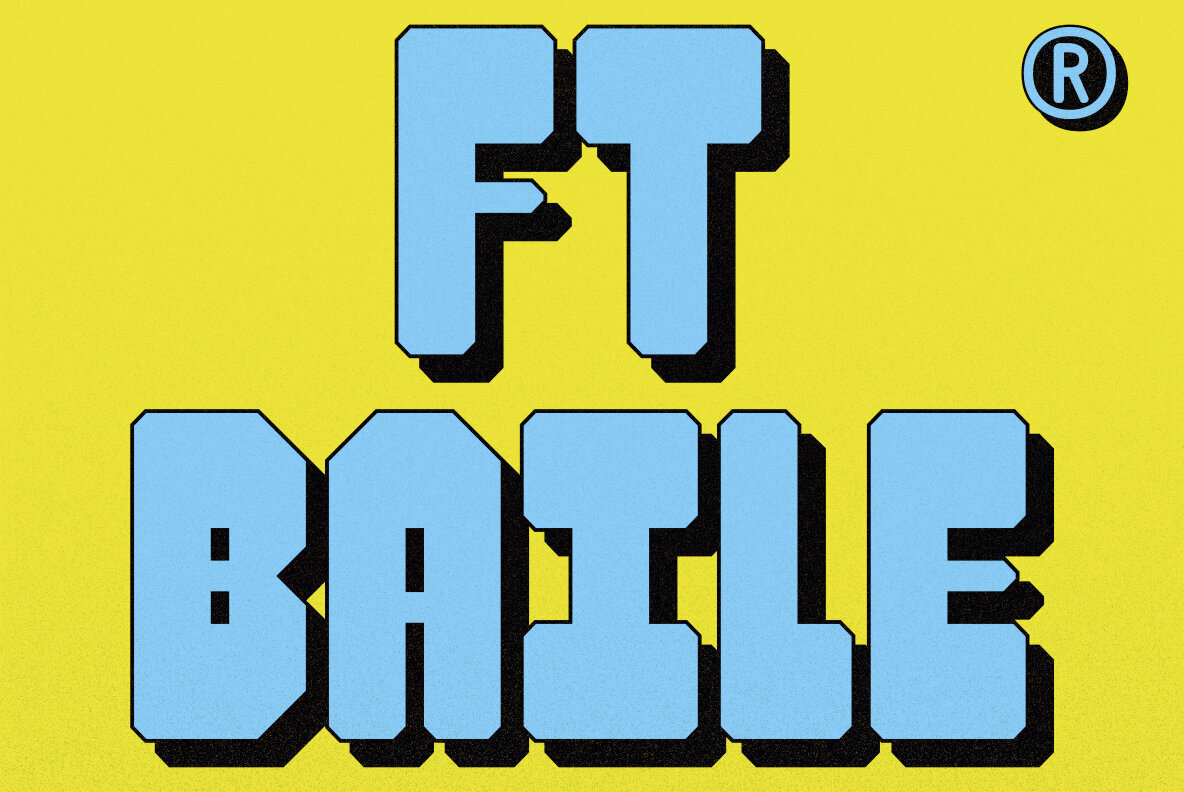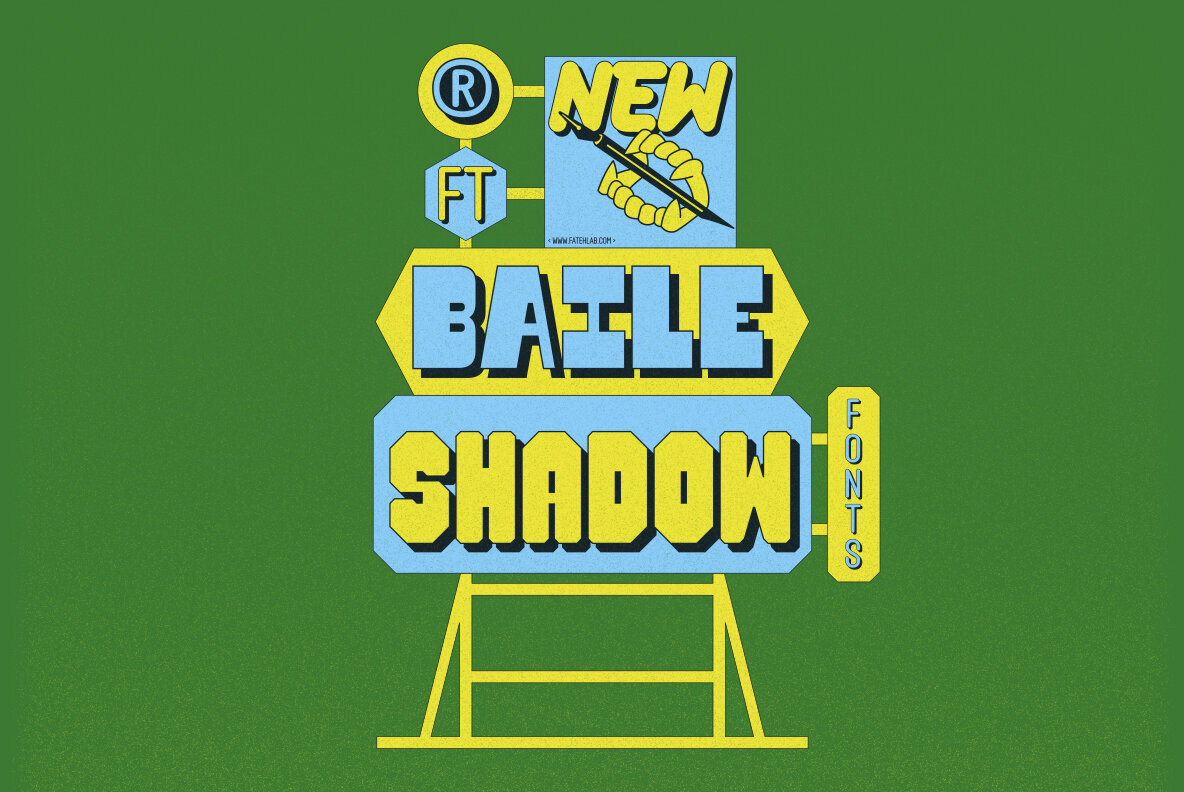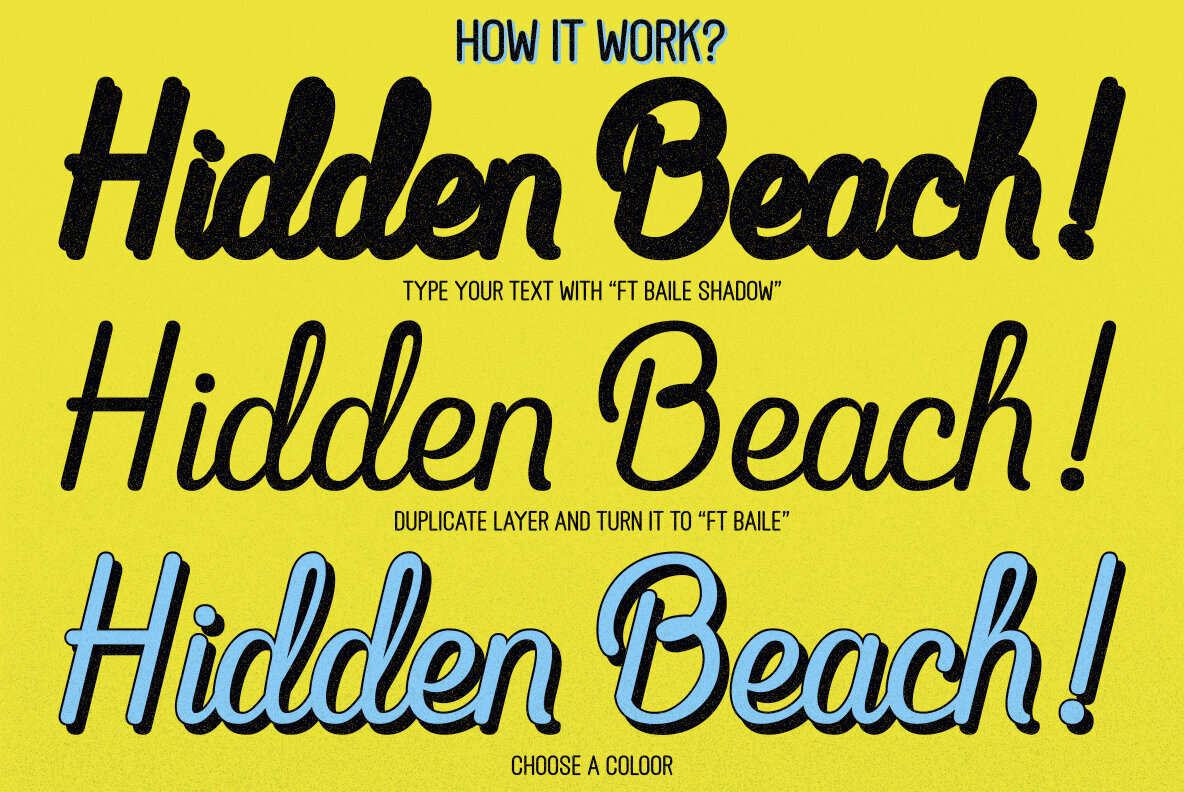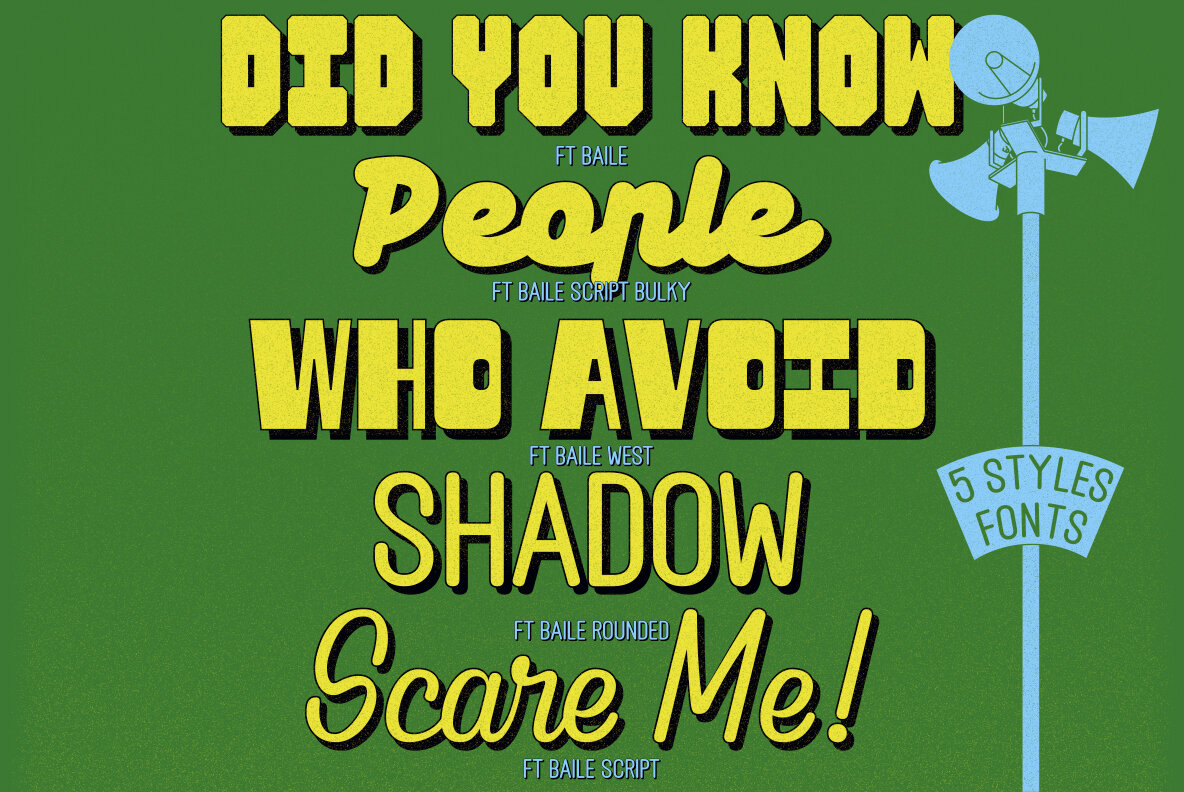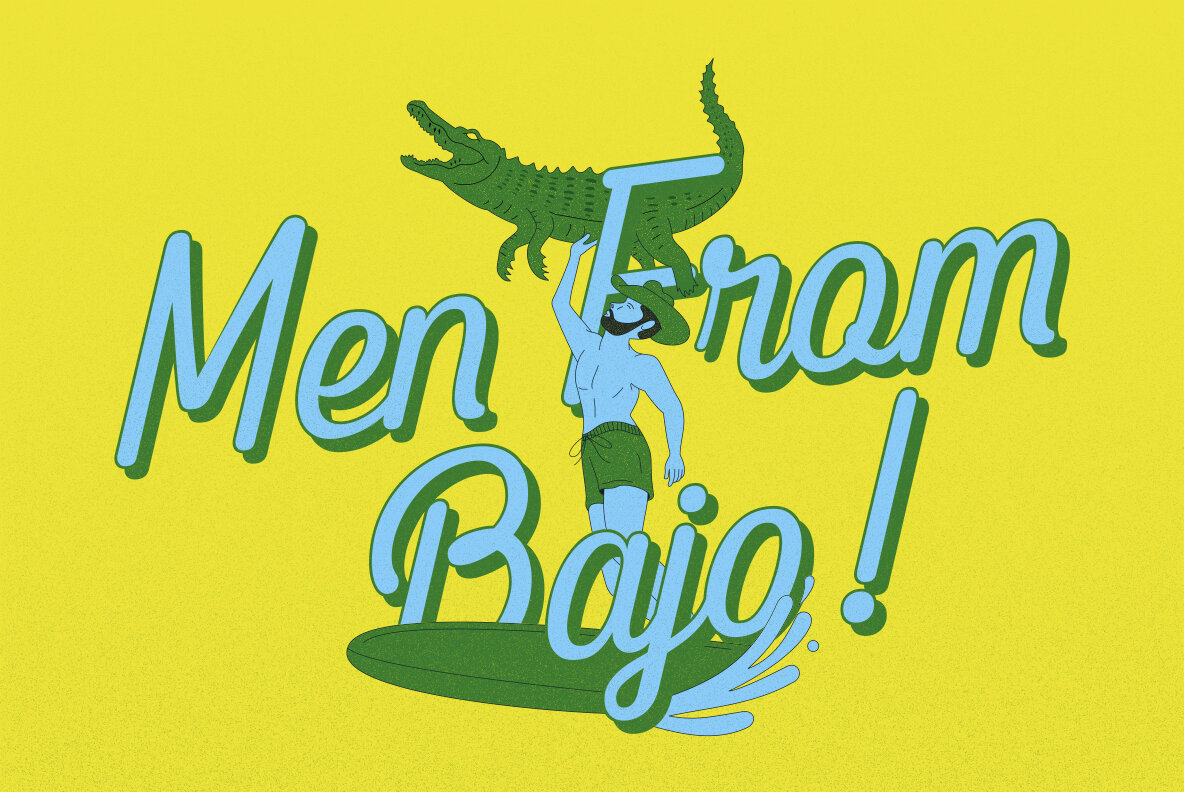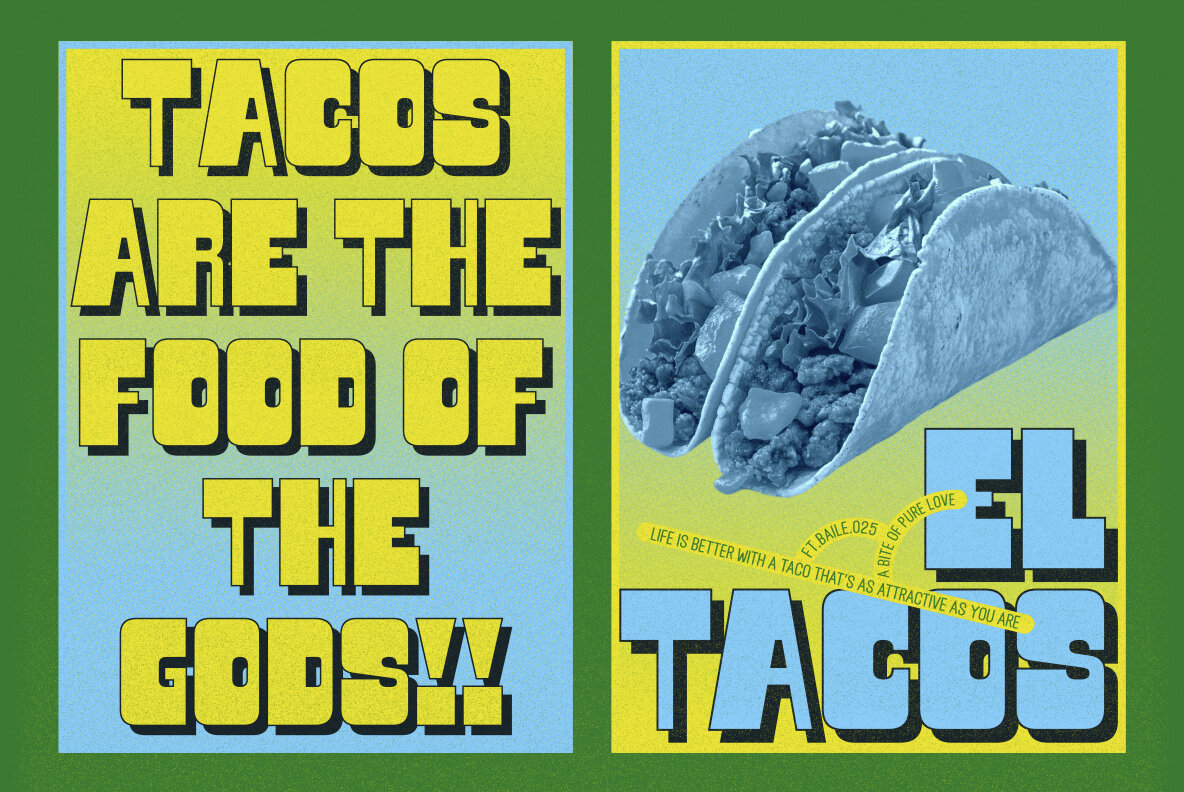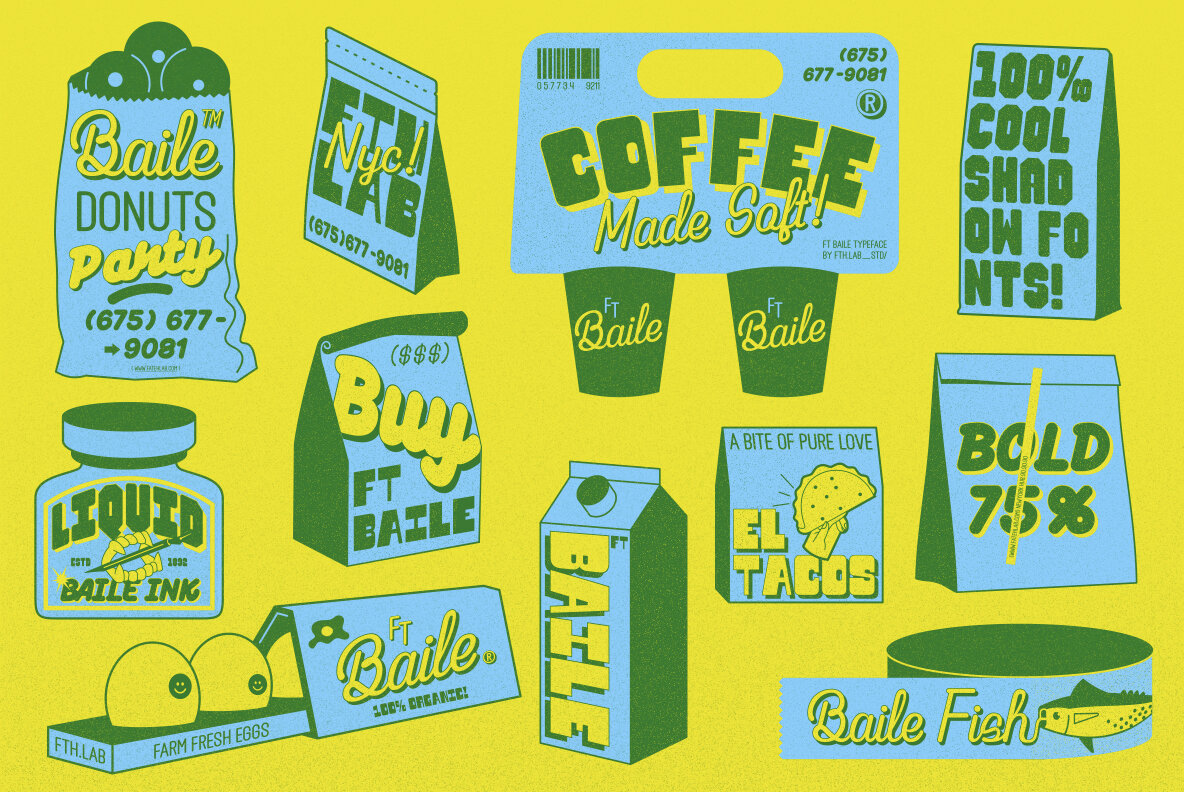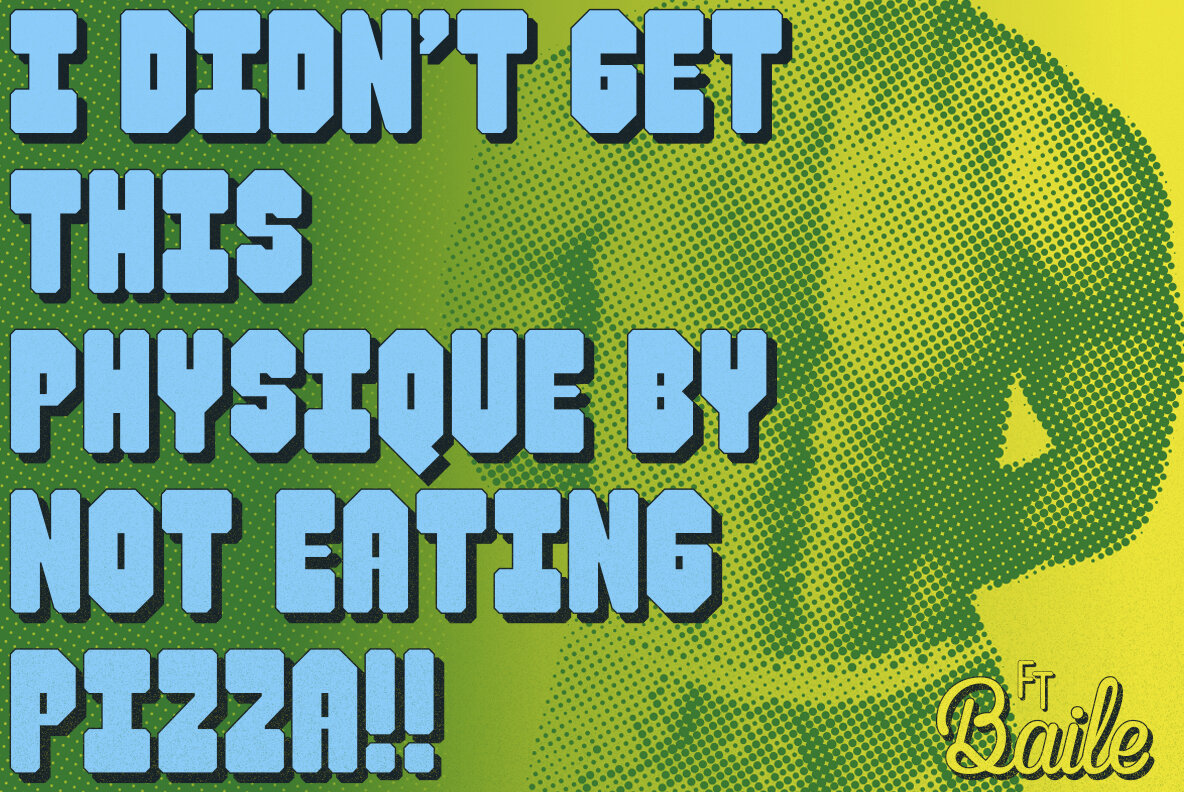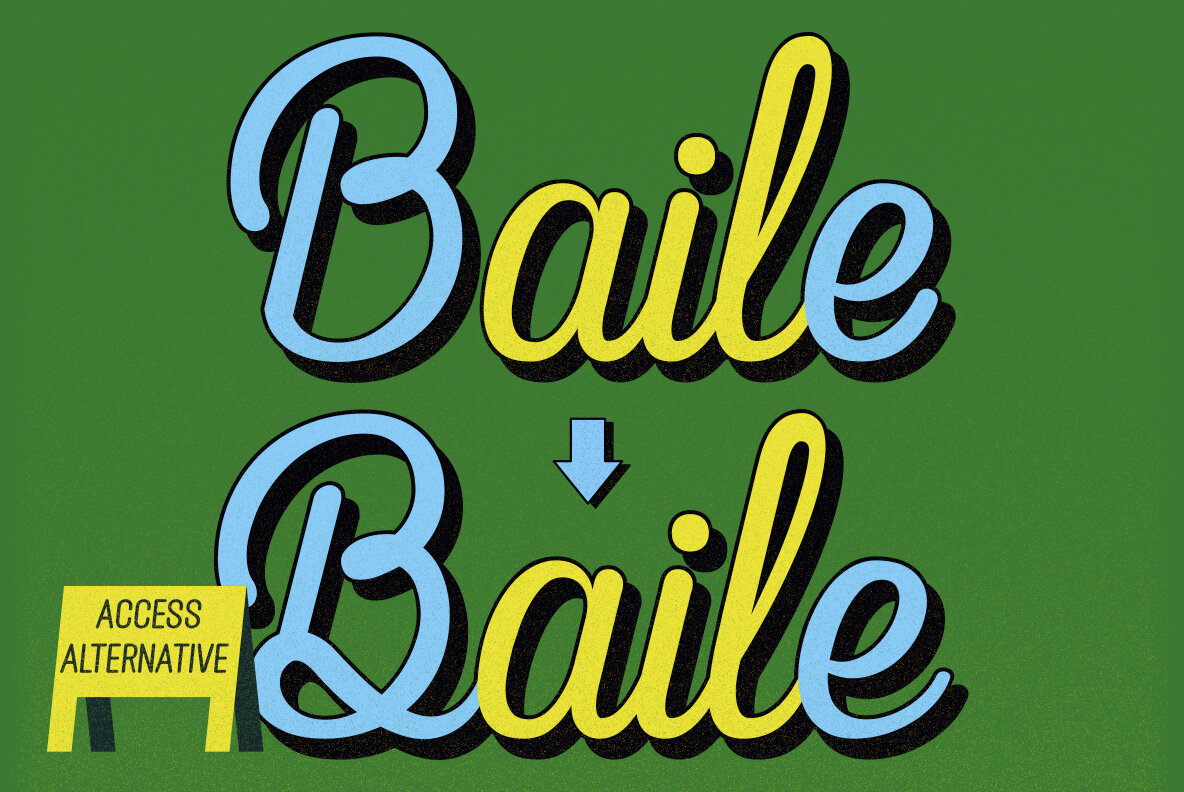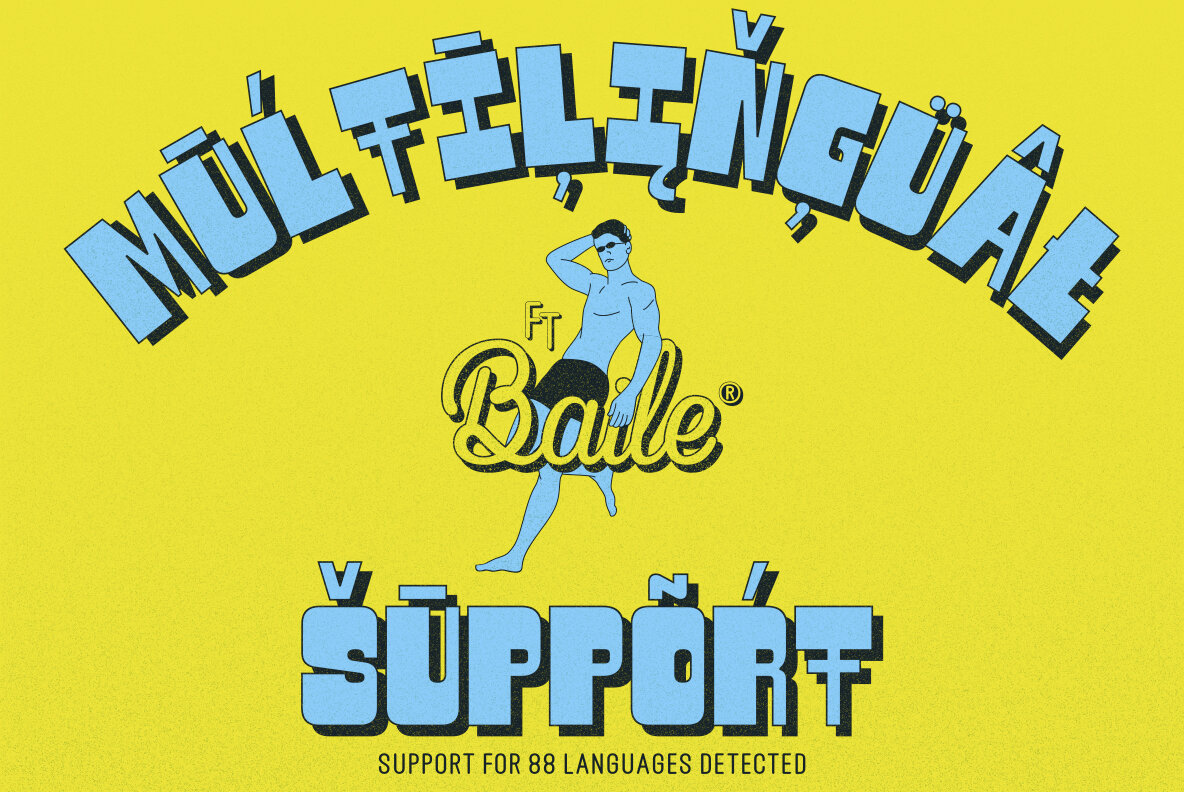
FT Baile Font
Ft. Baile brings a sculptural presence to contemporary typography. This shadow font features soft, confident contours that offer depth and dimension—ideal for designers who value character and clarity. Ft. Baile’s boldness stands out across posters, headlines, packaging, and editorial layouts, balancing expressive personality with concise legibility. The collection offers five styles, each thoughtfully detailed for versatile use. The design’s adaptability enables consistent brand identity across various platforms, ensuring memorable impressions in both digital and print settings. Ft. Baile’s superior legibility at large sizes makes it well-suited to event signage, magazine covers, and standout marketing collateral.Ft. Baile: Distinct Shadow Font for Bold Visual Impact